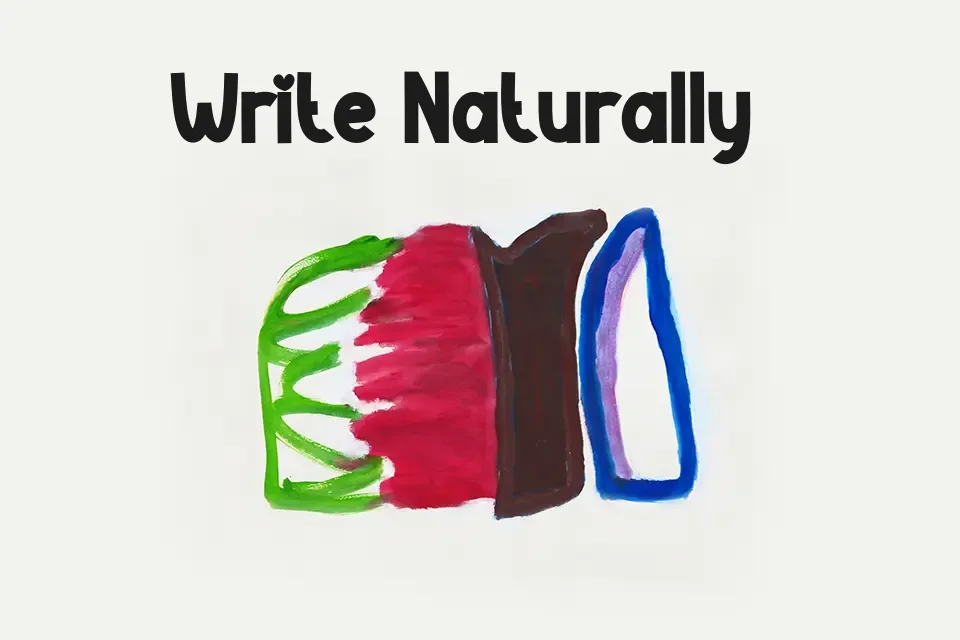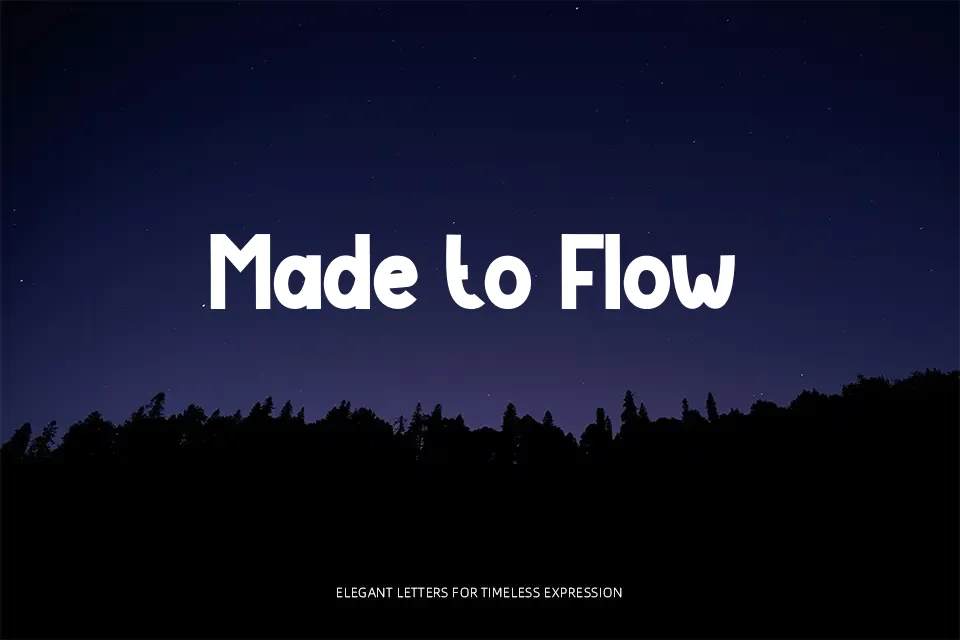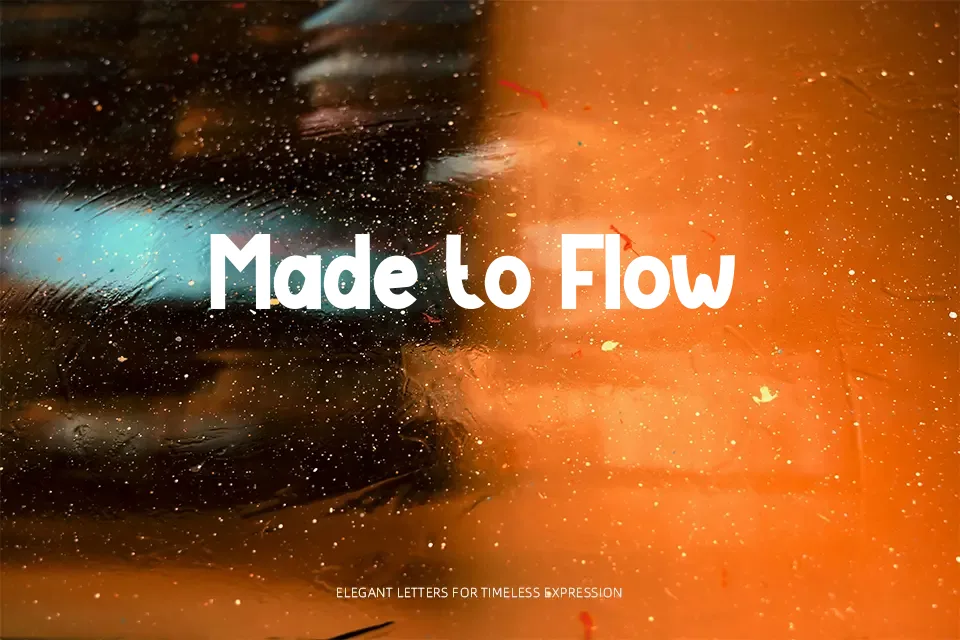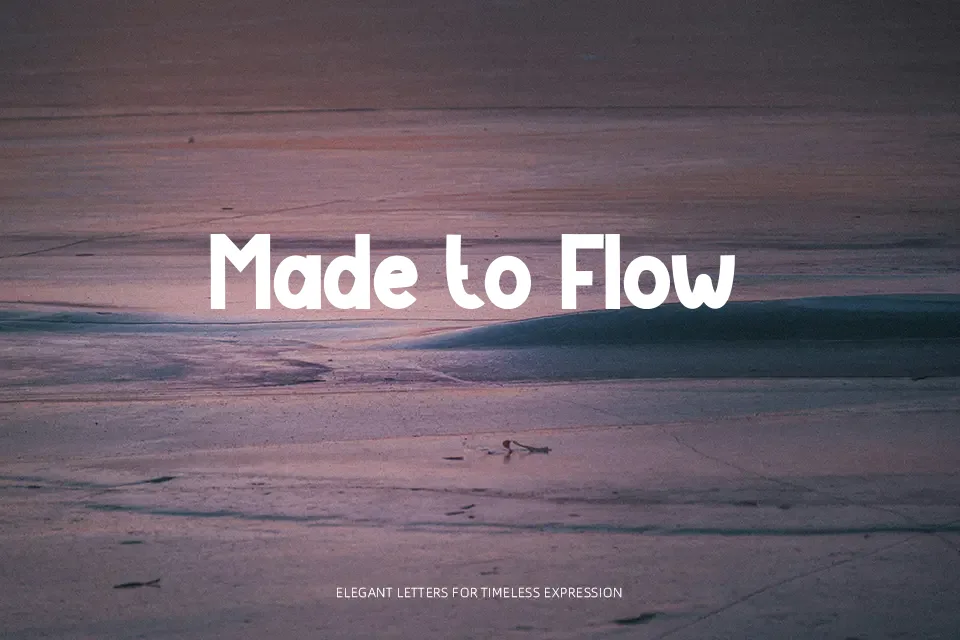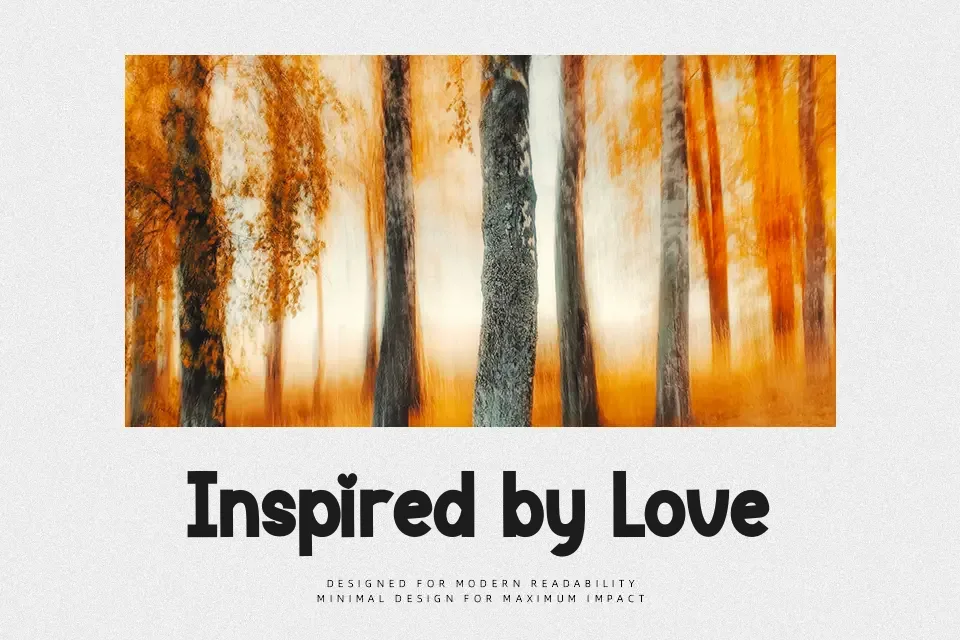
Beautiful Santa Font
Designed by Andi Moz
The strokes lean casual with moderate baseline bounce, giving each character a spontaneous handwritten texture rather than rigidly aligned geometry. Each letterform maintains consistent weight throughout, avoiding dramatic thick-thin contrast that would push it into formal script territory. This keeps the visual impression light and accessible, especially suited for projects where friendliness matters more than sophistication. It handles wedding invitations and greeting cards effectively when the tone needs to stay warm rather than elegant. However, the playful irregularity breaks down at smaller sizes—anything below 18pt starts losing clarity. The design doesn’t support dense information hierarchy well either, so multi-paragraph layouts or detailed menu copy will feel visually cluttered. Best reserved for short bursts of headline text or single-line greetings where the handcrafted feel enhances rather than distracts from readability.
Best For:- Holiday greeting cards and gift tags
– Wedding invitation headers
– Craft project labels
– Social media quote graphics
Not Ideal For:- Body text or paragraphs
– Small print below 16pt
– Corporate branding materials
– Dense restaurant menus
Perfect for christmas, holiday, and invitation, with a cute and display style.